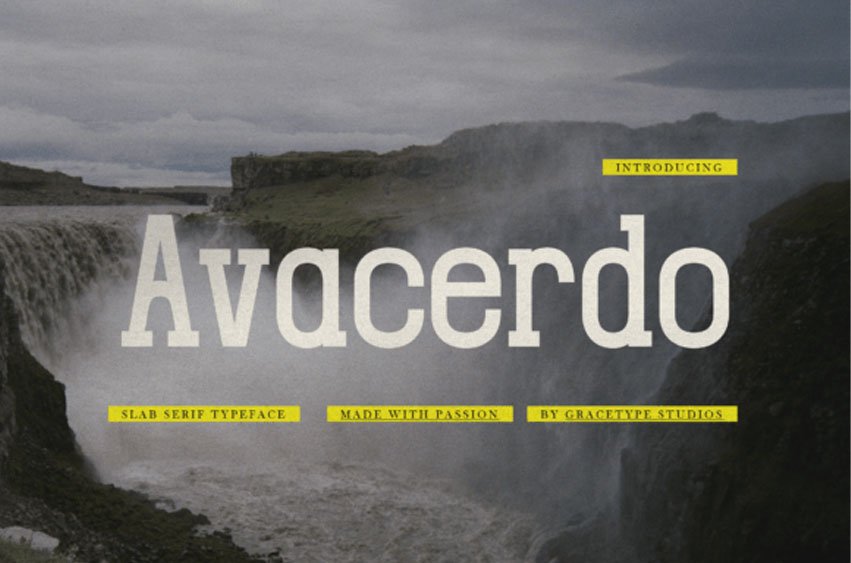
Avacerdo Font is a powerful and cinematic slab serif typeface designed to convey a sense of monumental strength and enduring beauty. Characterized by its high x-height, sturdy vertical stems, and a unique “arched” bridge on the lowercase ‘n’ and ‘r’, this font balances industrial precision with a flowing, organic rhythm. Its clean, impactful presence makes it a premier choice for outdoor adventure branding, high-end editorial titles, environmental signage, and monumental logo designs.
Avacerdo delivers an aesthetic of established reliability and natural grandeur, making it the perfect choice for brands that want to command attention against the backdrop of a vast landscape.